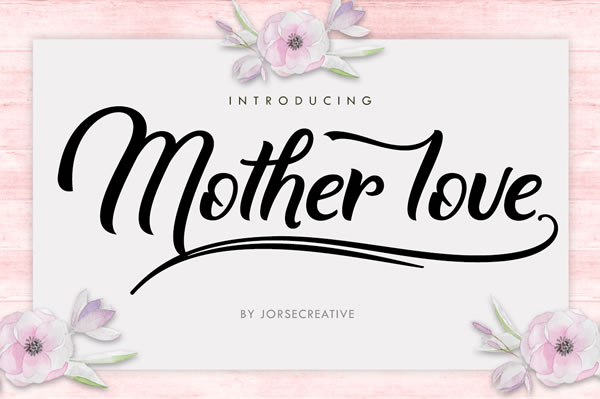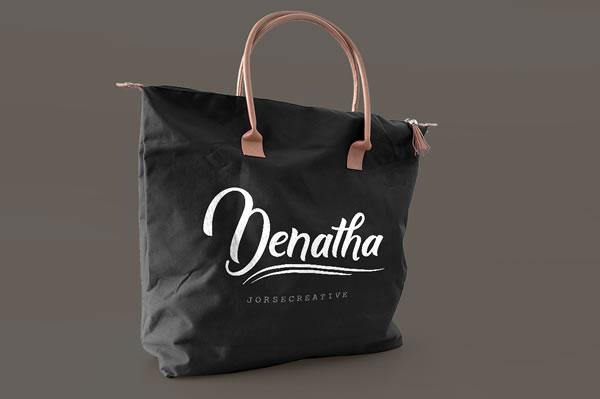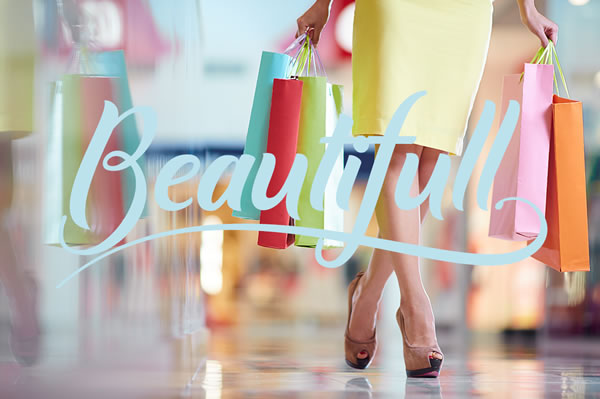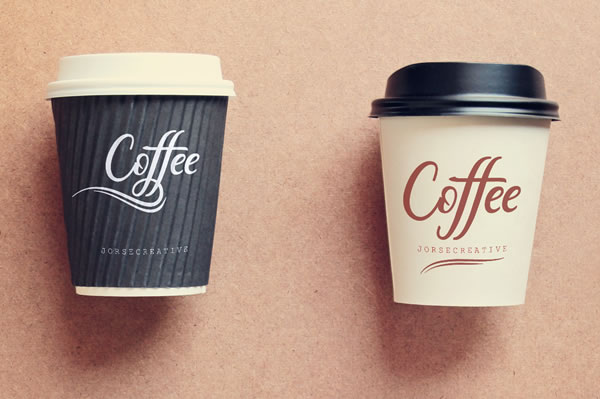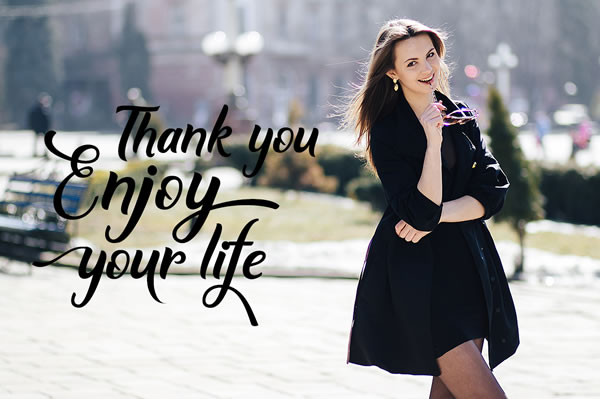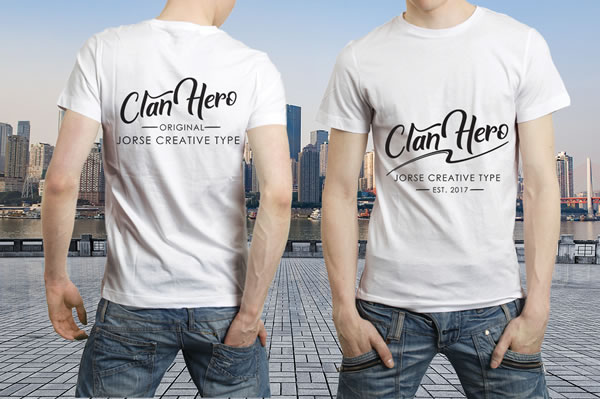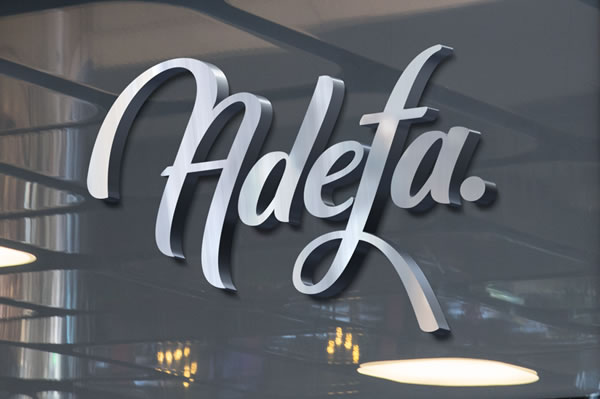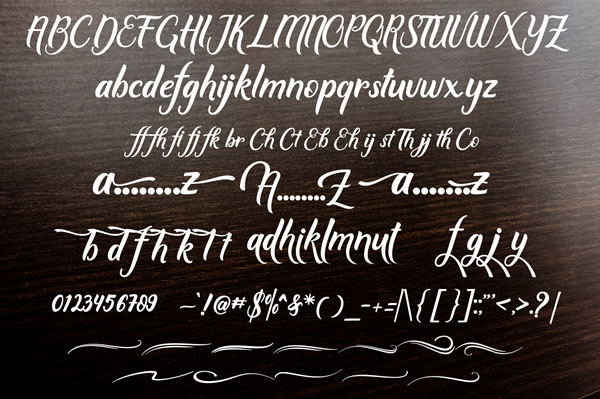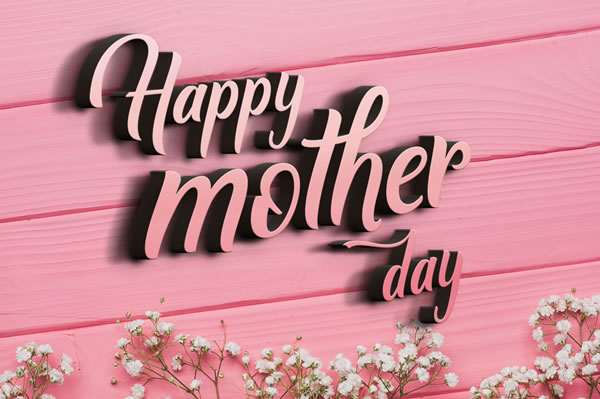
Mother Love Font
About Mother Love Font
Mother Love is a modern calligraphy typeface, which combines the classic style of calligraphy with a more modern one.
Mother Love features over 245 glyphs and has includes many alternate characters.